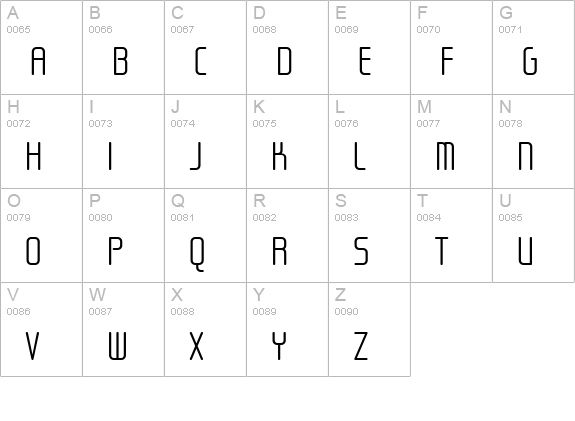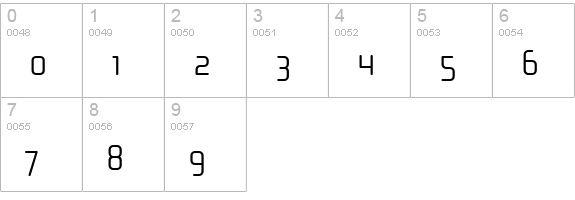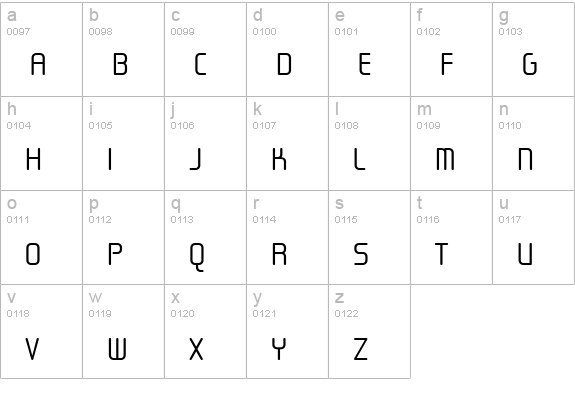
Sugarskin BTN Small Cap Font Details
Sugarskin BTN Small Cap is a charming and whimsical font that exudes a sense of playfulness and creativity. Its delicate curves and unique small caps give it a distinct and elegant appearance, making it perfect for a variety of design projects. Whether you're designing invitations, branding materials, or social media graphics, Sugarskin BTN Small Cap is sure to add a touch of sophistication to your work. The best part? This delightful font is completely free to download at FontsMarket.com. So go ahead and add a sprinkle of sweetness to your designs with Sugarskin BTN Small Cap!